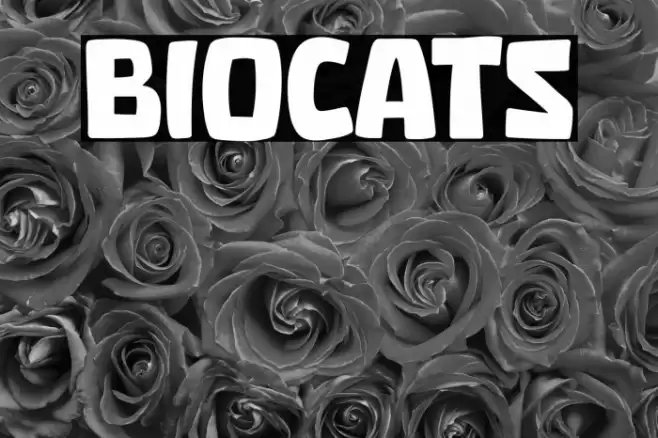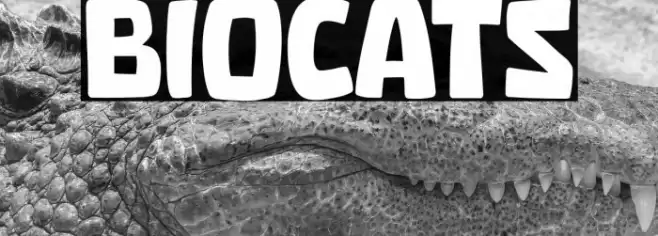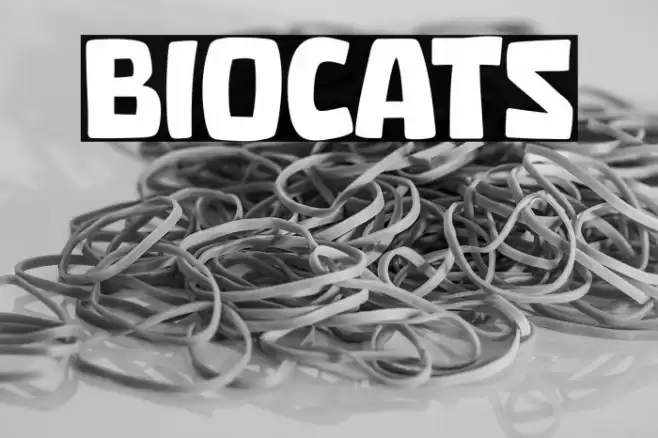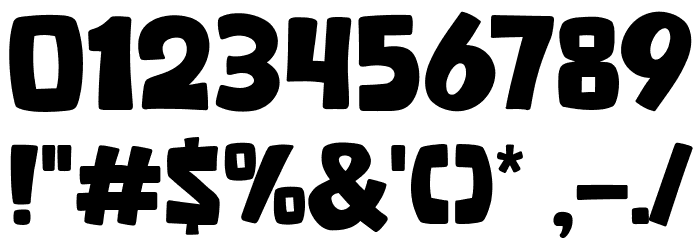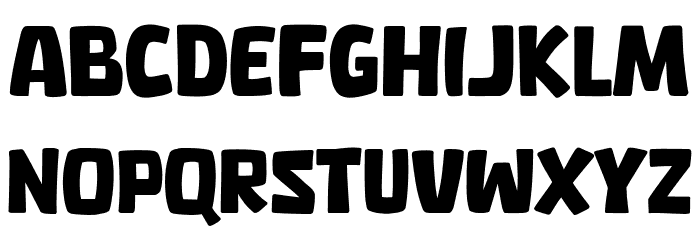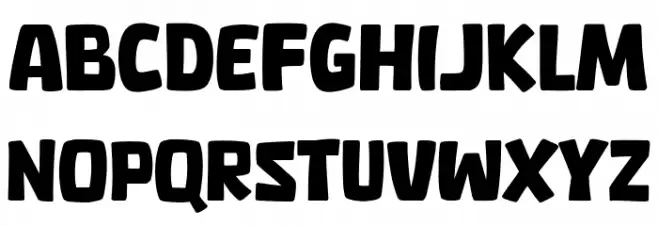
Biocats Font
Biocats Description
This font features a bold and playful style with thick, rounded strokes that give it a friendly and approachable appearance. The characters are slightly condensed, enhancing their compact and cohesive look. The uppercase and lowercase letters maintain a consistent weight, contributing to a uniform and balanced aesthetic. The numbers and special characters follow the same design principles, ensuring a harmonious overall appearance. The font's boldness and unique character shapes make it suitable for attention-grabbing designs.
A bold, playful font with rounded strokes and a friendly appearance from Uncategorized fonts.
- Font: Biocats
- Proposed Projects: Ideal for children's books, playful branding, posters, and merchandise designs.
- Width: Condensed
- Overall Style: Playful, Modern